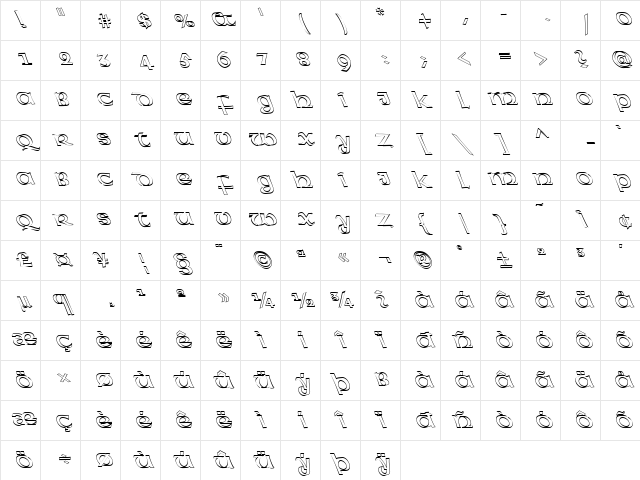
FZ BASIC 43 HOLLOW LEFTY Normal
Design Context for FZ BASIC 43 HOLLOW LEFTY
FZ BASIC 43 HOLLOW LEFTY is a composed and adaptable typeface that performs quietly and consistently across a wide range of design contexts.